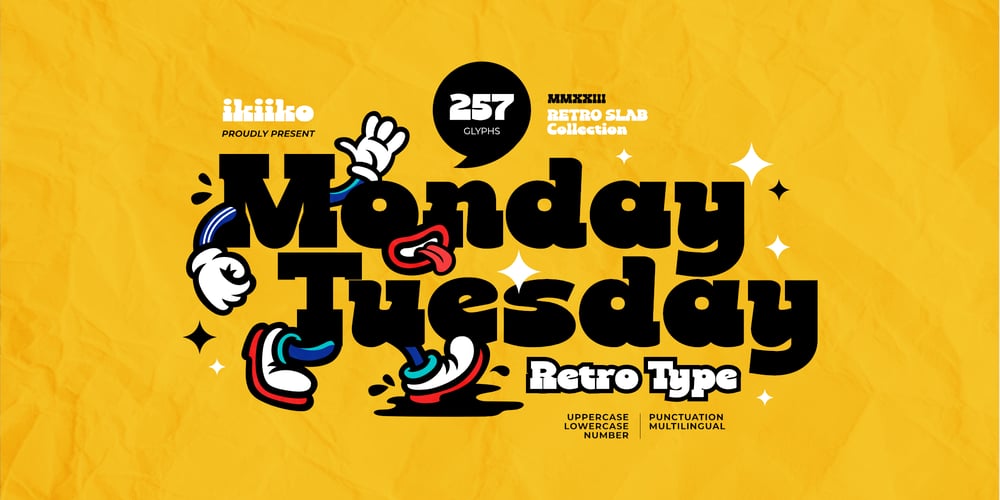
Monday Tuesday
Monday Tuesday font
Monday Tuesday Font Family was designed by Wahyu Eka Prasetya, Andhika Pradana and published by IKIIKOWRK. Monday Tuesday contains 1 styles and family package options. Proudly present Monday Tuesday – Retro Type, created by ikiiko.Monday Tuesday is an thick slab font with a touch of retro style. This type has a character bold, sturdy and also short. Tight font spacing makes this font has a retro impression and is more fun to explore. This type is very suitable for making a poster, magazine layout, brand logo, packaging, food & beverages, cartoon style, quotes, or simply as a stylish text overlay to any background image.What’s Included? Uppercase & Lowercase Numbers & Punctuation Multilingual Support Works on PC & Mac Enjoy our font and if you have any questions, you can contact us by email : ikiikowrk@gmail.com